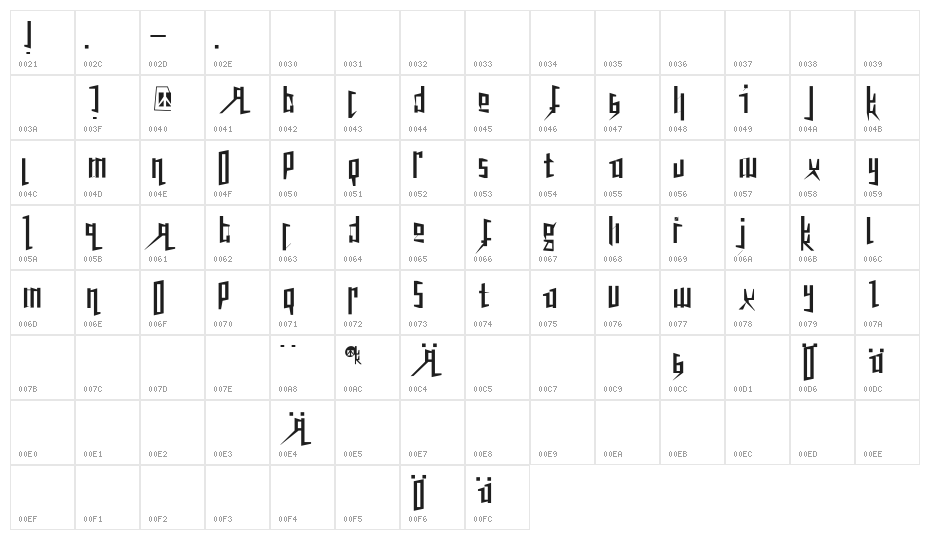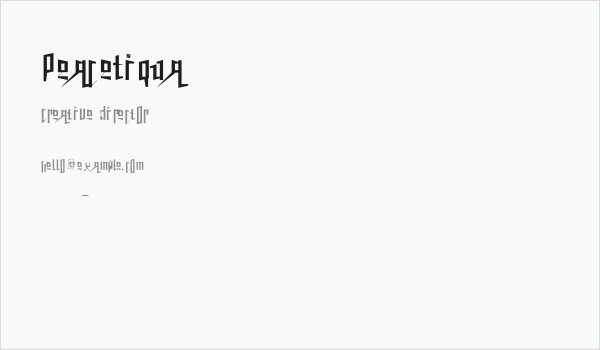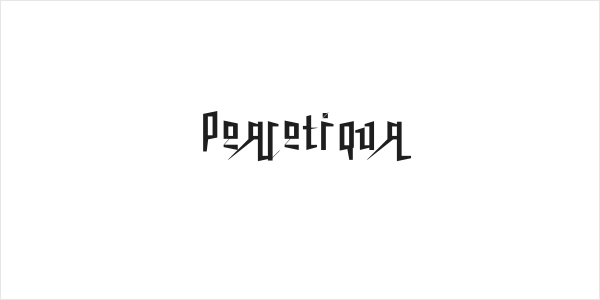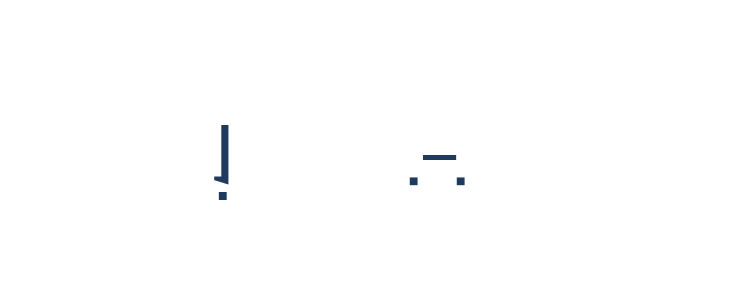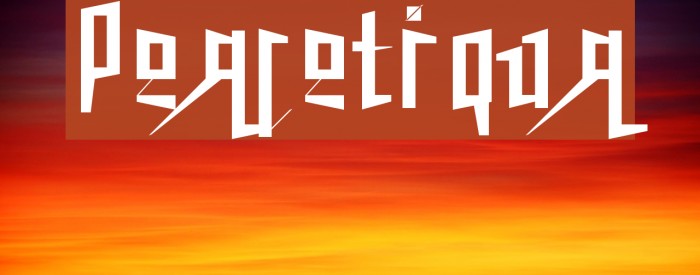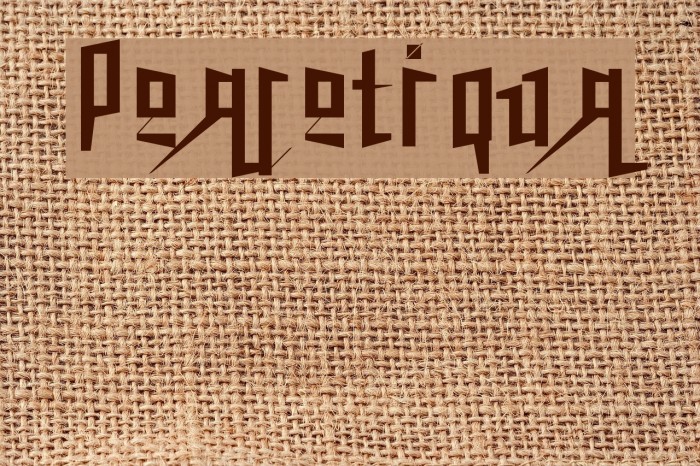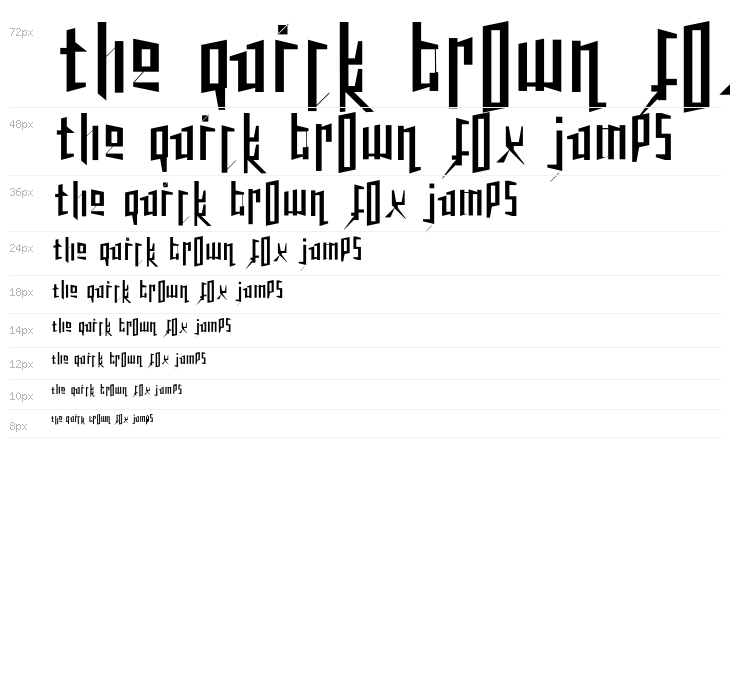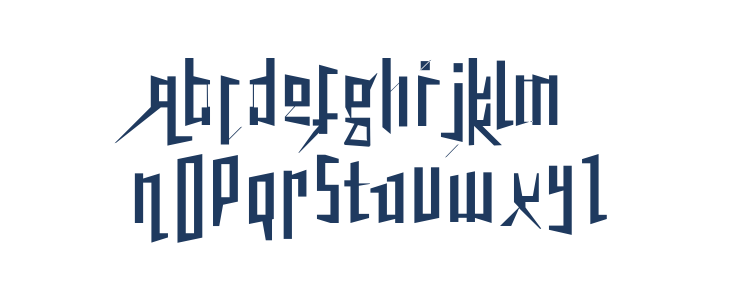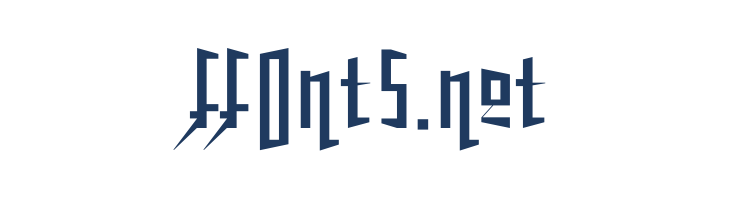
Peacetiqua Font
Peacetiqua Description
This font features a bold and angular design with sharp edges and geometric forms. The characters are highly stylized, with a futuristic and edgy appearance. The uppercase and lowercase letters share a consistent angular theme, creating a cohesive look. The numbers and special characters maintain the same sharp, pointed style, adding to the font's unique aesthetic. The overall design is striking and modern, making it suitable for projects that require a bold statement.
| Proposed Projects | Ideal for sci-fi themed designs, video game titles, posters, and branding that requires a modern and bold look. |